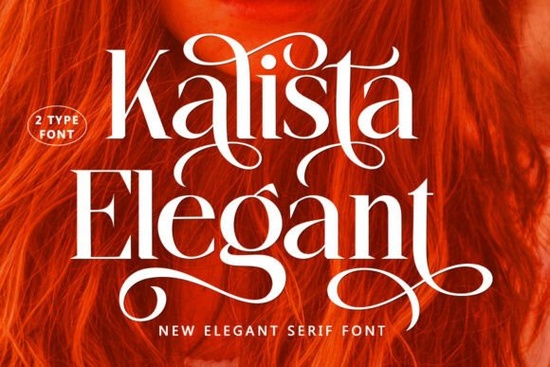
Finding the right serif font can make or break a design. Kalista Elegant Font brings together a luxurious serif style with a modern shape that works beautifully across a range of creative projects. Whether you're designing wedding invitations, branding materials, or print-on-demand products, this font offers the kind of versatility that's hard to find in a single typeface.
Available on Creative Fabrica, Kalista Elegant is designed for people who want their work to look polished without feeling stiff. It has a friendly quality in its bolder weights, while its lighter styles lean more refined and sophisticated.
What Makes This Serif Font Different from Others?
A lot of serif fonts fall into two camps: either they feel too traditional and stiff, or they try so hard to be modern that they lose the classic charm of serifs altogether. Kalista Elegant sits in a comfortable middle ground. The letterforms have a modern structure with enough serif detailing to feel timeless.
What really stands out is the font's range. It includes extra glyphs that give you more design options alternate characters, ligatures, and stylistic variations. For crafters and designers who like to experiment, this means you can create multiple looks from a single font file.
The bold weight, in particular, has a cheerful energy to it. It doesn't feel heavy or overpowering. Instead, it carries a warmth that works well for greeting cards, social media graphics, and product packaging.
Who Is This Font Best Suited For?
This font works well for a broad range of creative professionals and hobbyists:
- Print-on-demand sellers who need fonts that look sharp on mugs, t-shirts, tote bags, and posters
- Small business owners building brand identities for boutiques, salons, bakeries, or lifestyle brands
- Wedding stationery designers looking for something elegant but not overused
- Content creators designing Instagram posts, Pinterest pins, or YouTube thumbnails
If you work with serif fonts regularly, you'll appreciate how this one balances personality with professionalism. It has enough character to stand out, but it won't compete with your other design elements.
What Design Projects Work Well with Kalista Elegant?
This font adapts to different contexts depending on the weight and styling you choose. Here are some practical uses:
- Logo design The clean serif lines give logos a high-end feel without looking generic
- Book covers and editorial layouts Works especially well for romance, lifestyle, and fashion genres
- Invitation cards Weddings, birthdays, baby showers, and holiday events
- Social media templates Quote graphics, sale announcements, and promotional posts
- Product labels Candles, cosmetics, food packaging, and handmade goods
The extra glyphs also let you swap out characters for a more custom look. This is especially useful if you're creating a logo or header and want something that feels one-of-a-kind.
How Does It Compare to Other Serif Fonts?
If you're exploring your options, it helps to compare. There are several elegant serif fonts worth considering depending on your project's tone and style. Kalista Elegant leans modern and approachable, which sets it apart from fonts that feel more historical or decorative.
For projects that need a bit more flair, you might also look at stylish serif fonts with decorative flair. These can be a good fit when you want your typography to feel more expressive or artistic.
That said, if your goal is a font that's classy, versatile, and easy to pair with other typefaces, Kalista Elegant is a strong pick. It plays nicely with both sans-serif and script fonts, which makes it flexible for multi-font layouts.
Practical Tips for Getting the Most Out of This Font
- Test it at different sizes. Serif fonts can look very different at small versus large scales. Make sure it reads well at the size you'll actually use.
- Pair it with a clean sans-serif. A simple sans-serif for body text keeps the focus on Kalista Elegant where it matters most in headlines and titles.
- Try both weights. The regular and bold styles each have a distinct personality, so experiment before committing to one.